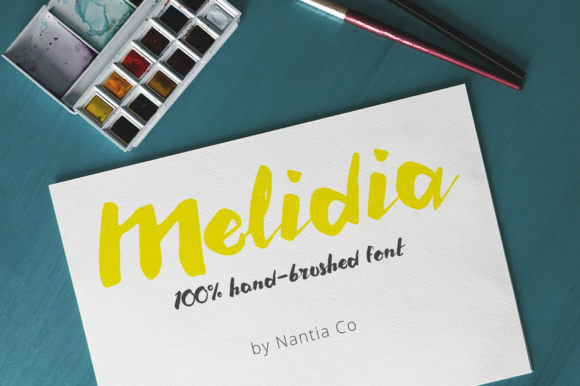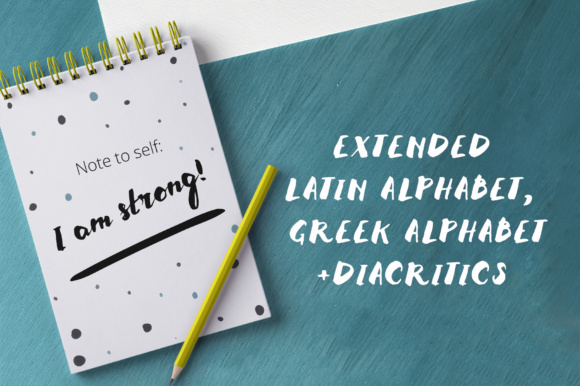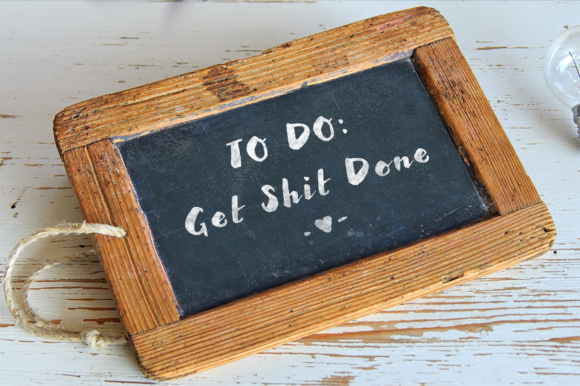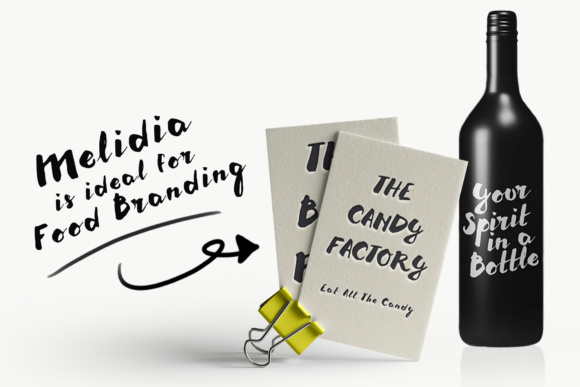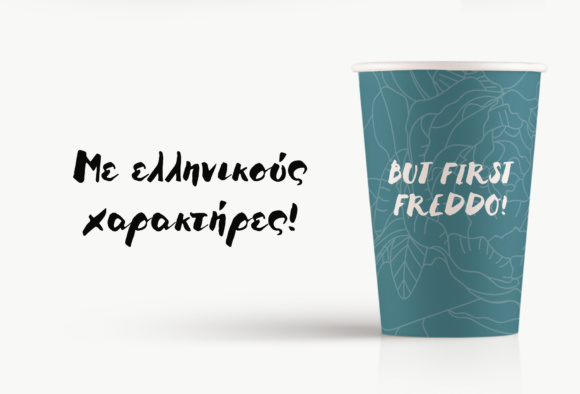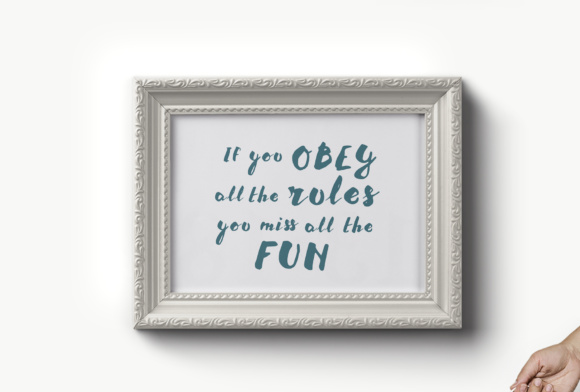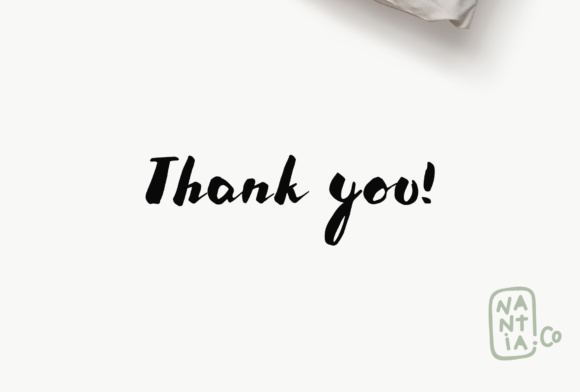
Melidia Font
About Melidia Font
Melidia is a bold, hand brushed typeface. Its modern style is perfect for multiple designing needs such as: the food industry, food branding, for restaurant menus and packaging, social media posts and every other design that needs a modern typeface.